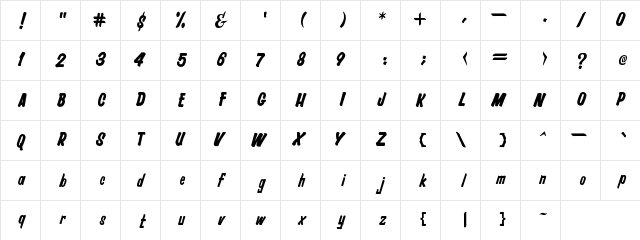
FONTE Regular
Design Context for FONTE Typeface
FONTE offers clean, dependable letterforms without strong stylistic allegiance, making it a practical choice for designers who need flexibility.